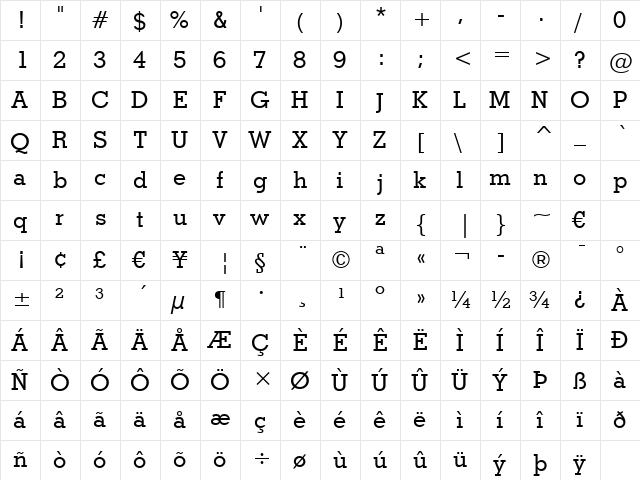
Stymie Md BT Medium
Design Context for Stymie Md BT Typeface
Stymie Md BT is a composed and adaptable typeface that performs quietly and consistently across a wide range of design contexts.
Pro Tip: Use Stymie Md BT in both headline and body roles to test its range before committing to a single application.